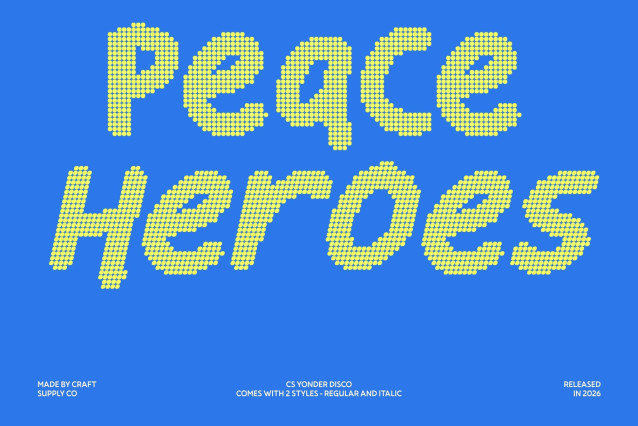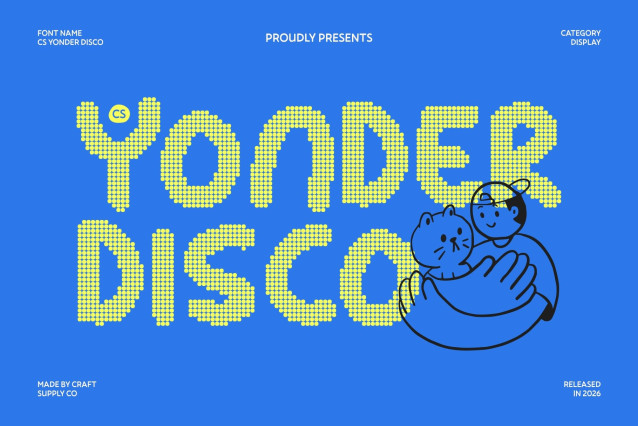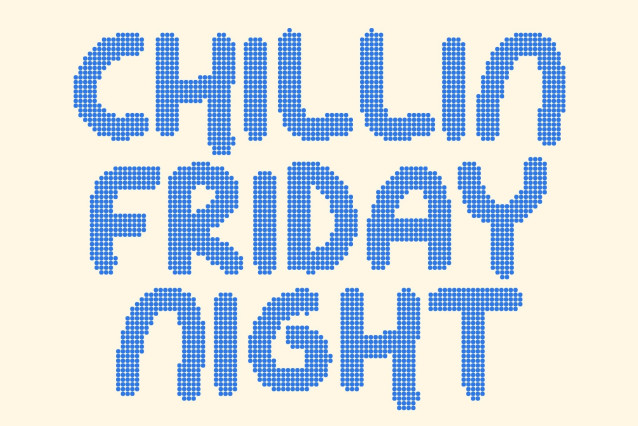
CS Yonder Disco Font
CS Yonder Disco – Playful Charm with Sparkling Imagination
Friendly Handwritten Kids Font with Disco Dots
This cute handwritten kids font now shines in a lively disco dot style, capturing the joy and spontaneity of childhood with a sparkling twist. Clean yet organic lines blend with cheerful dotted texture, creating a typeface that feels approachable, fun, and full of personality perfect for designs that celebrate imagination and happiness.
Cheerful Shapes with Bright, Expressive Energy
Rounded letterforms and soft geometry bring warmth and positivity, while the disco-inspired dots add a festive, glowing rhythm. The handwritten influence keeps the font lively and natural, turning every word into a playful visual experience filled with movement and charm.
Perfect for Colorful and Creative Projects
From children’s books and educational materials to posters, toys, packaging, and playful branding, this font shines across both print and digital media. The joyful dotted texture enhances colorful layouts and makes every design feel more vibrant and engaging.